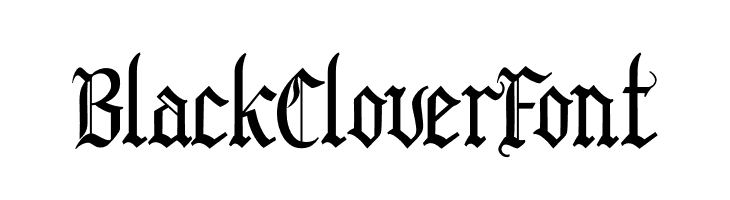
An ornate and decorative font with elongated serifs and intricate details.
An ornate blackletter font with bold, angular letterforms and a historical feel.
A traditional Gothic-style font with intricate, angular letterforms and high contrast.
A bold, ornate Blackletter font with sharp, angular lines and historical elegance.
A bold, Gothic-style font with intricate, angular detailing.